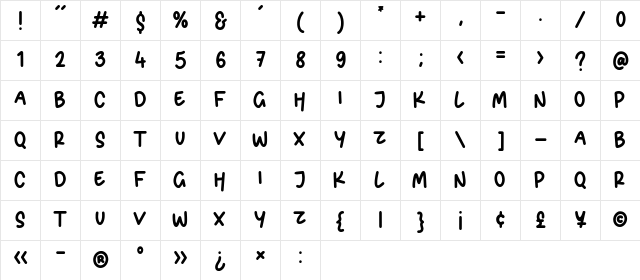
BREAKBONE Regular
| Designer | Balpirick Studio |
Design Context for BREAKBONE Typeface
BREAKBONE takes a measured approach to typography — its balanced proportions and neutral character make it a reliable workhorse for both digital and print work.